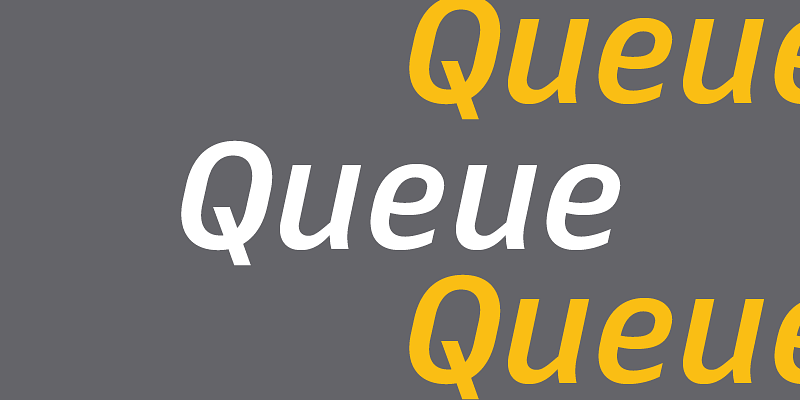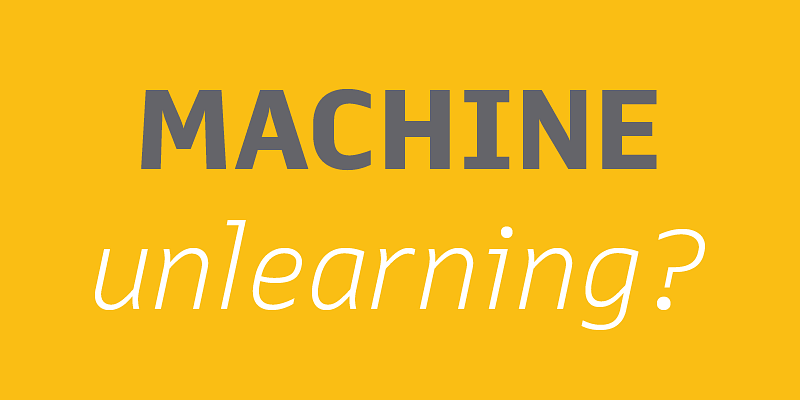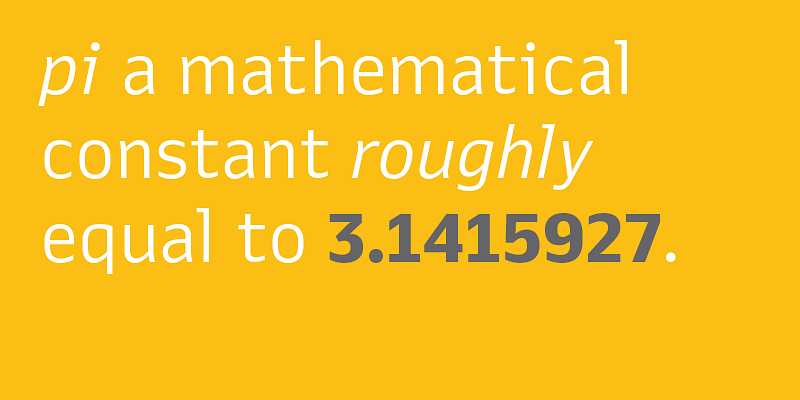
Queue typographically represents the intertwinement of technology and humanity. It features calligraphic shapes rendered with machine precision. The highly-legible forms are well-suited to convey any message without ambiguity.